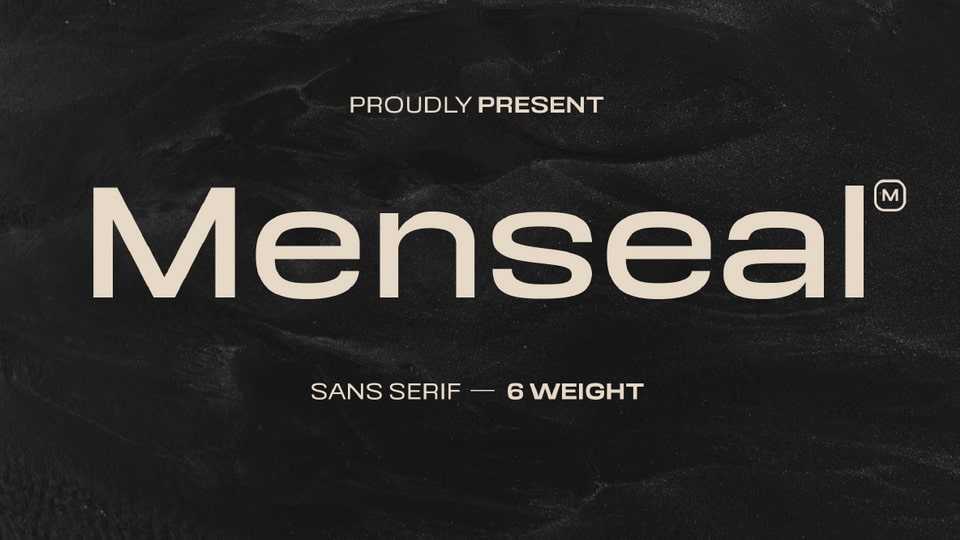
Download Menseal font, a modern typeface that features a sans-serif design that combines futuristic elements with a semi-square and wide character, creating a bold and modern look, perfect for clothing and sportswear.
Designer: Yukita Creative